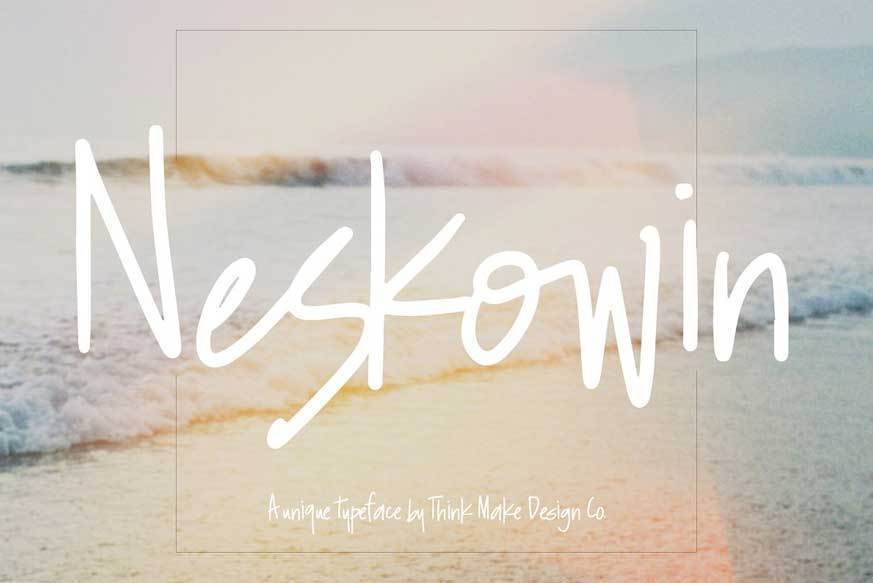
Neskowin Font
Neskowin Font Includes over 75 handwritten ligatures that help create a natural look that is super popular right now in both big commercial and small personal design.